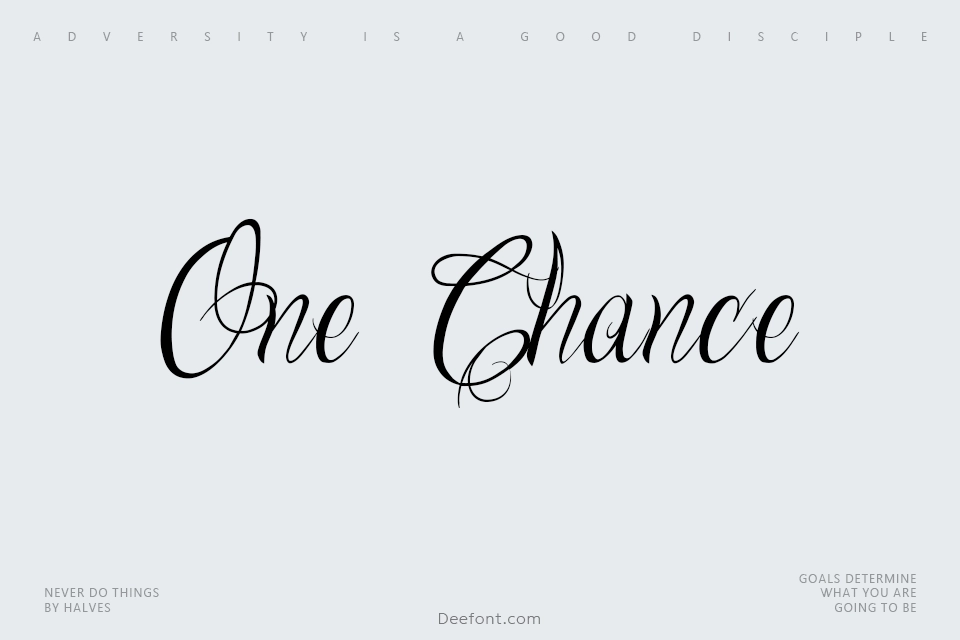
One Chance Script Font
One Chance Script is an elegant calligraphic typeface designed for personal creative projects. With its fluid, hand-drawn aesthetic, this script font delivers sophisticated typography perfect for invitations, greeting cards, and decorative applications. The font features graceful letterforms and smooth curves that evoke a refined, artistic sensibility ideal for anyone seeking charming, expressive text designs.